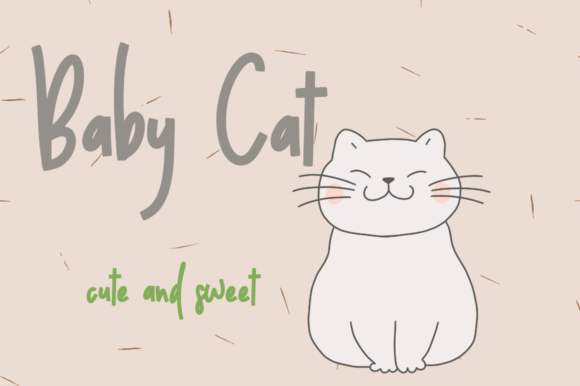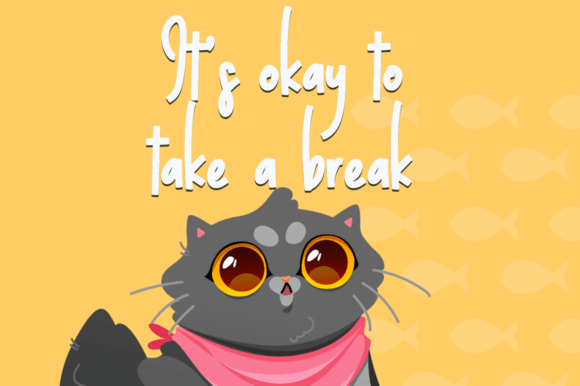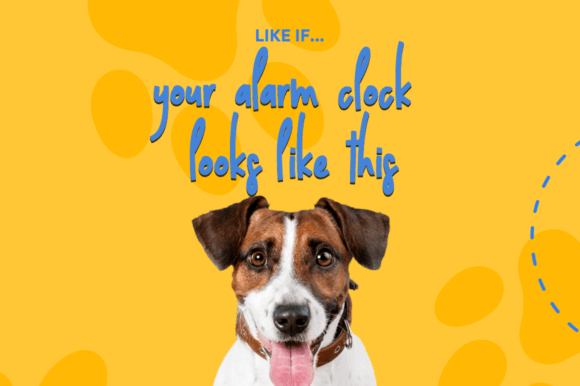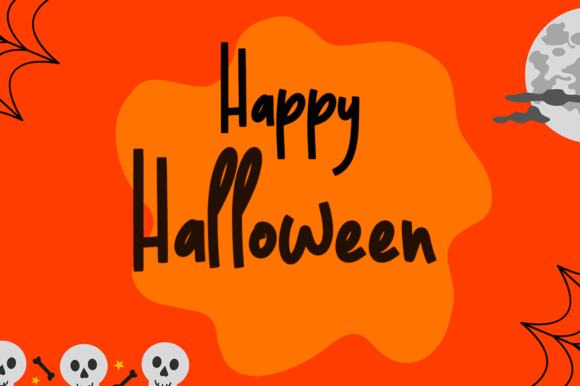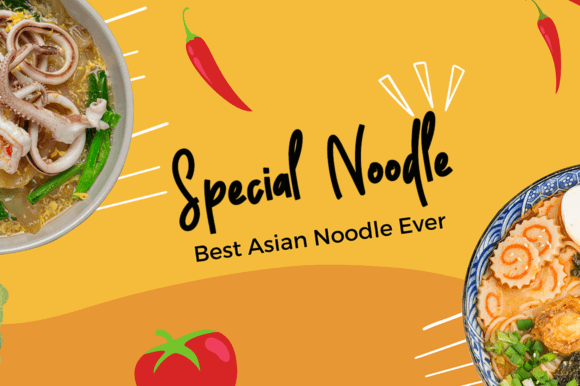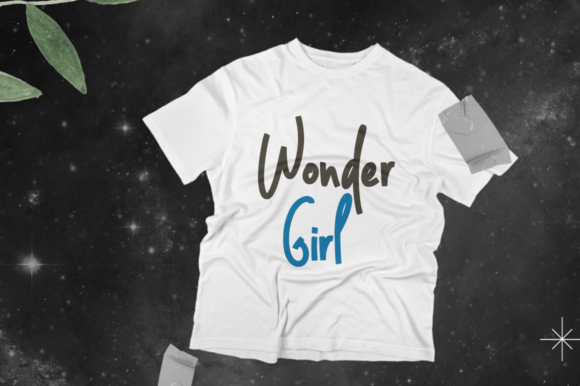
Bull Dog Font: Elevate Your Designs with Enchanting Handwritten Elegance
Are you on the hunt for a font that adds a touch of casual elegance to your designs? Look no further than the Bull Dog font, an enchanting handwritten script font that is sure to captivate your audience. With its unique Regular variant and artistic swash, this font effortlessly exudes a sense of refinement and sophistication, making it perfect for a wide range of applications.
What Makes Bull Dog Font So Special?
The Bull Dog font is a beautifully crafted handwritten script font that boasts a calligraphy design. Its unique Regular variant sets it apart from other fonts, giving it a distinctive and artistic flair. The font’s casual elegance is accentuated by an artistic swash, which adds a touch of whimsy and playfulness to any design. Whether you’re looking to create a logo, enhance product packaging, or add a personal touch to wedding invitations, the Bull Dog font is the perfect choice.
Diverse Applications of Bull Dog Font
One of the best things about the Bull Dog font is its versatility. It can be used in a wide range of applications, from branding and headlines to signage and labels. Here are just a few examples of how you can use the Bull Dog font to elevate your designs:
- Logos and Branding: The Bull Dog font is perfect for creating unique and memorable logos that reflect your brand’s personality. Its elegant and sophisticated design makes it ideal for businesses that want to establish a strong brand identity.
- Product Packaging: Add a touch of elegance to your product packaging with the Bull Dog font. Its artistic swash and handwritten script design make it perfect for creating eye-catching labels and packaging that stands out on store shelves.
- Wedding Invitations: Make your wedding invitations truly special with the Bull Dog font. Its casual elegance and artistic flair make it perfect for creating beautiful and unique wedding stationery.
- Signage and Labels: The Bull Dog font is also great for creating eye-catching signage and labels. Its bold and elegant design makes it perfect for businesses that want to grab the attention of their customers.
- Signatures and Book Covers: Add a personal touch to your signatures and book covers with the Bull Dog font. Its elegant and sophisticated design makes it perfect for authors, artists, and anyone who wants to add a touch of elegance to their work.
- Posters and Quotes: The Bull Dog font is also great for creating stunning posters and adding depth to your favorite quotes. Its artistic swash and handwritten script design make it perfect for creating visually appealing designs that grab attention.
Why Designers and Crafters Love Bull Dog Font
Designers and crafters love the Bull Dog font for its unique and elegant design. Here are just a few reasons why:
- Unique Design: The Bull Dog font has a unique and distinctive design that sets it apart from other fonts. Its artistic swash and handwritten script design make it perfect for designers who want to create visually appealing designs.
- Versatility: The Bull Dog font is incredibly versatile, making it perfect for a wide range of applications. Whether you’re creating a logo, enhancing product packaging, or adding a personal touch to wedding invitations, this font is the perfect choice.
- Elegance: The Bull Dog font exudes elegance and sophistication, making it perfect for designers who want to create refined and polished designs.
| Font Name | Bull Dog Font |
| Author | cocodesign |
In conclusion, the Bull Dog font is a beautifully crafted handwritten script font that is sure to elevate your designs. With its unique Regular variant and artistic swash, this font effortlessly exudes casual elegance and sophistication. Its versatility makes it perfect for a wide range of applications, from branding and headlines to signage and labels. Whether you’re a designer or crafter, the Bull Dog font is a must-have in your font collection. So why wait? Discover the diverse applications of the Bull Dog font and let your creativity soar!